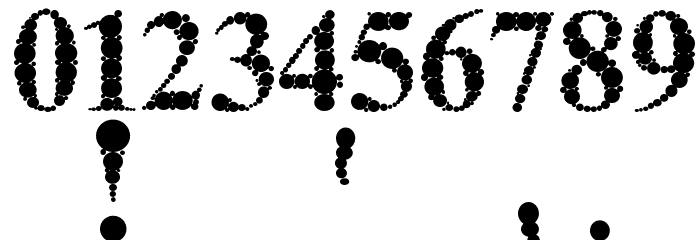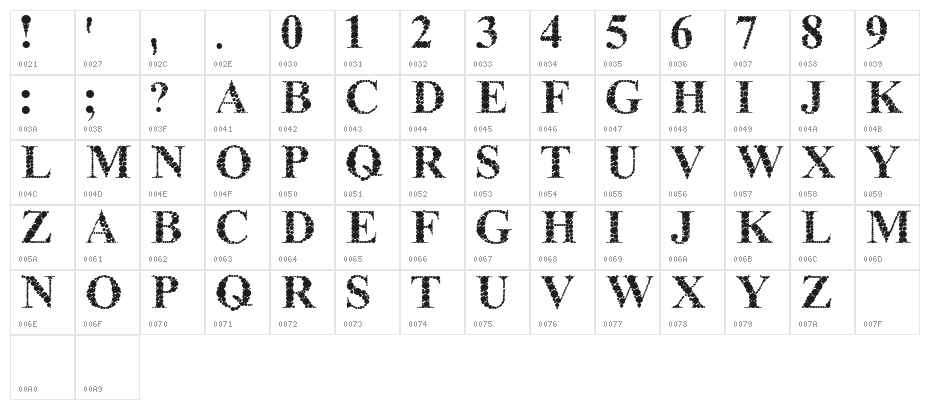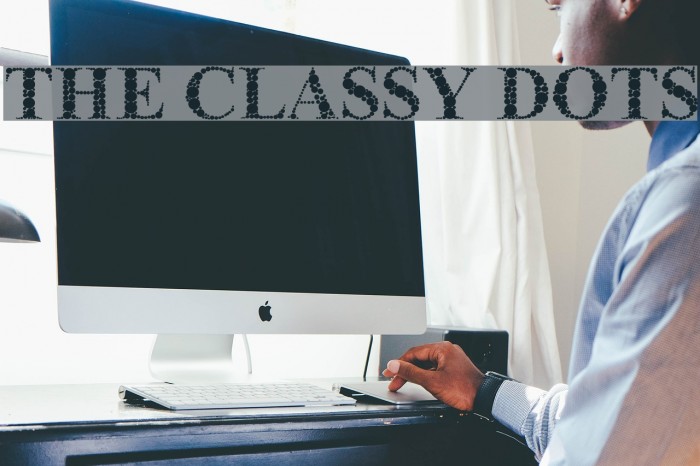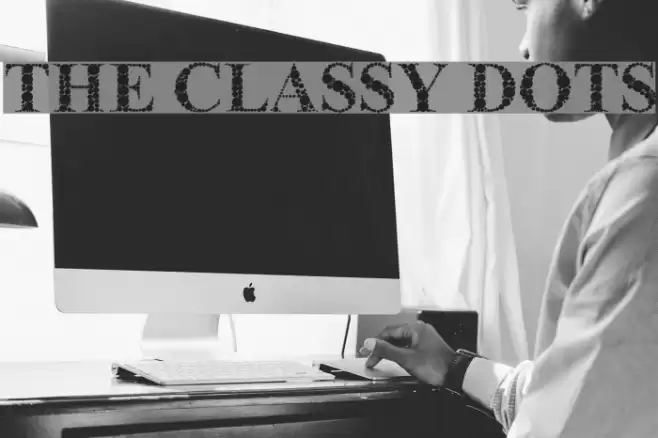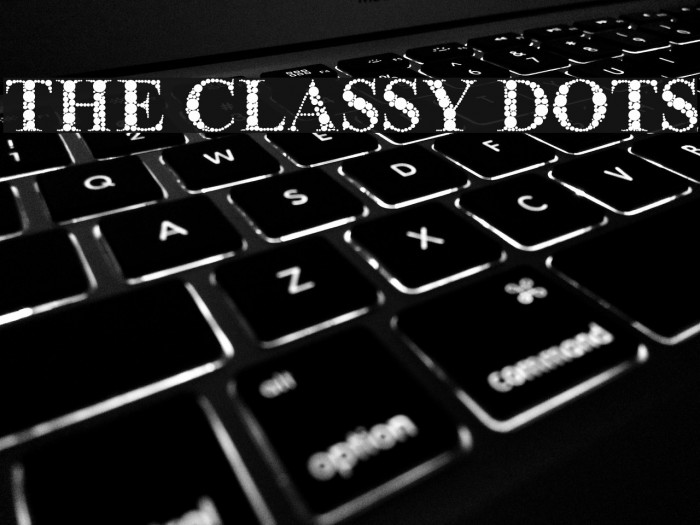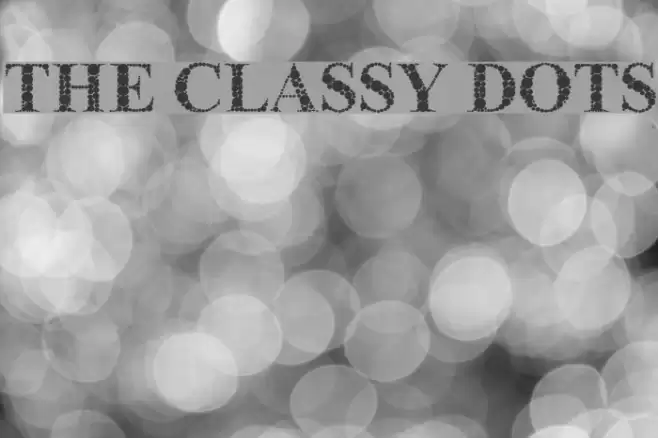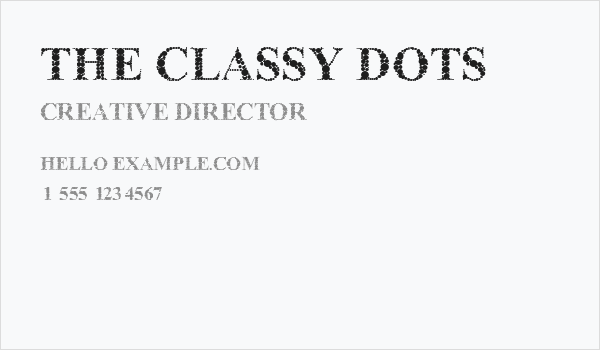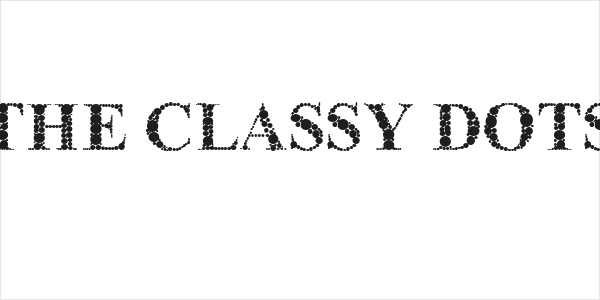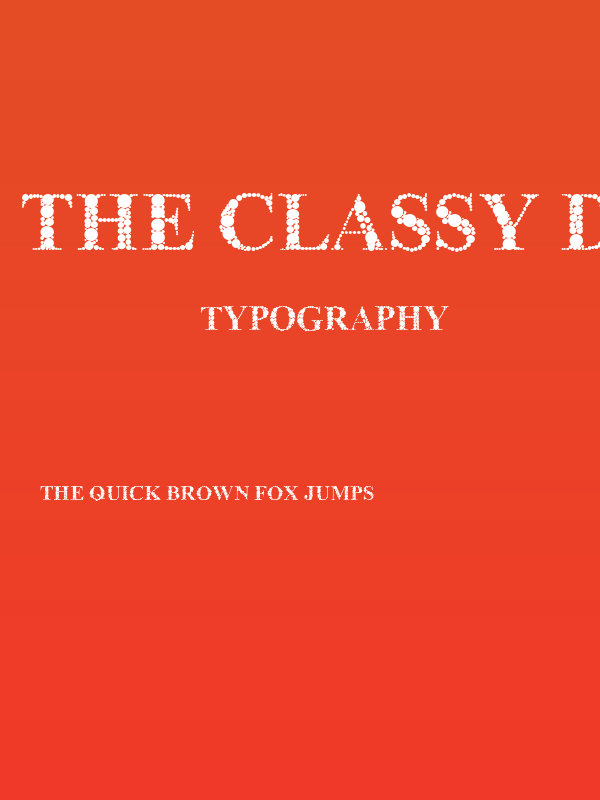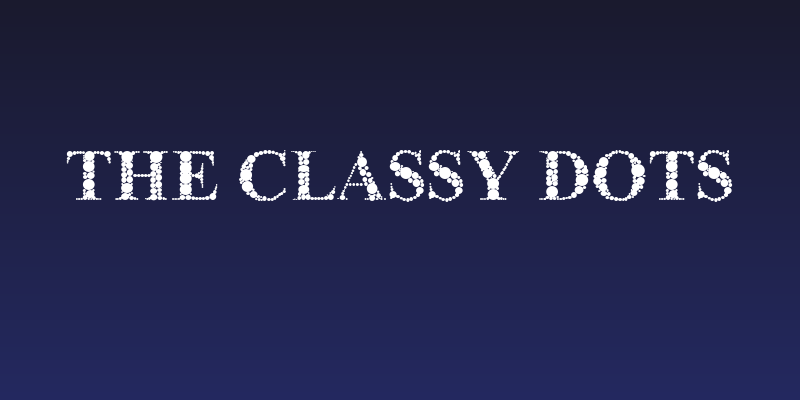
The Classy Dots Font
The Classy Dots Description
This font features a unique and playful design composed entirely of dots, creating a visually striking and textured appearance. Each character is meticulously crafted with varying dot sizes, giving it a dynamic and lively feel. The uppercase and lowercase letters maintain a consistent style, ensuring readability while adding a touch of whimsy. The numbers and special characters follow the same dotted pattern, making them cohesive with the alphabet. This font's distinct style makes it ideal for creative projects that require a bold and artistic flair.
| Proposed Projects | Ideal for creative projects such as posters, invitations, branding, and any design requiring a bold artistic touch. |